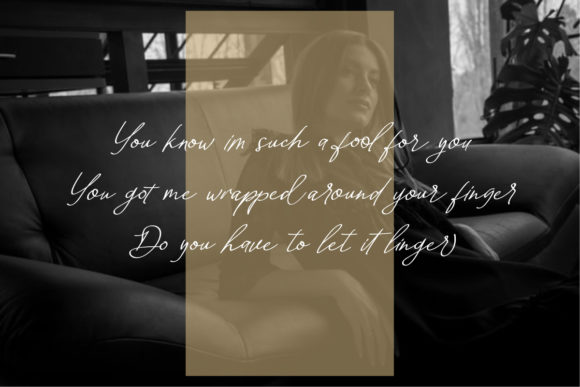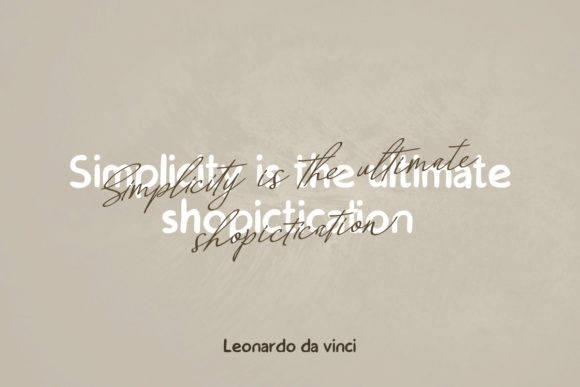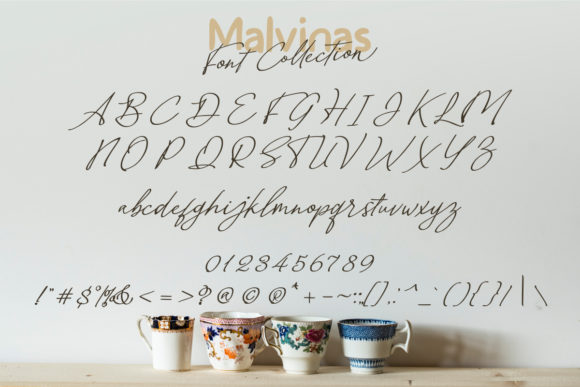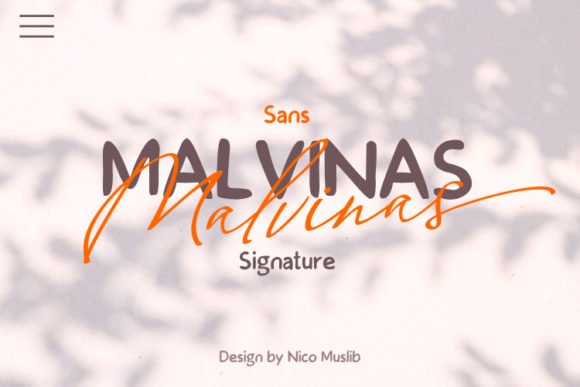
Introduction to Malvinas Duo Font
Malvinas is a beautiful font dup that brings together a stunning script and a cool sans serif font.
Key Features of Malvinas Duo Font